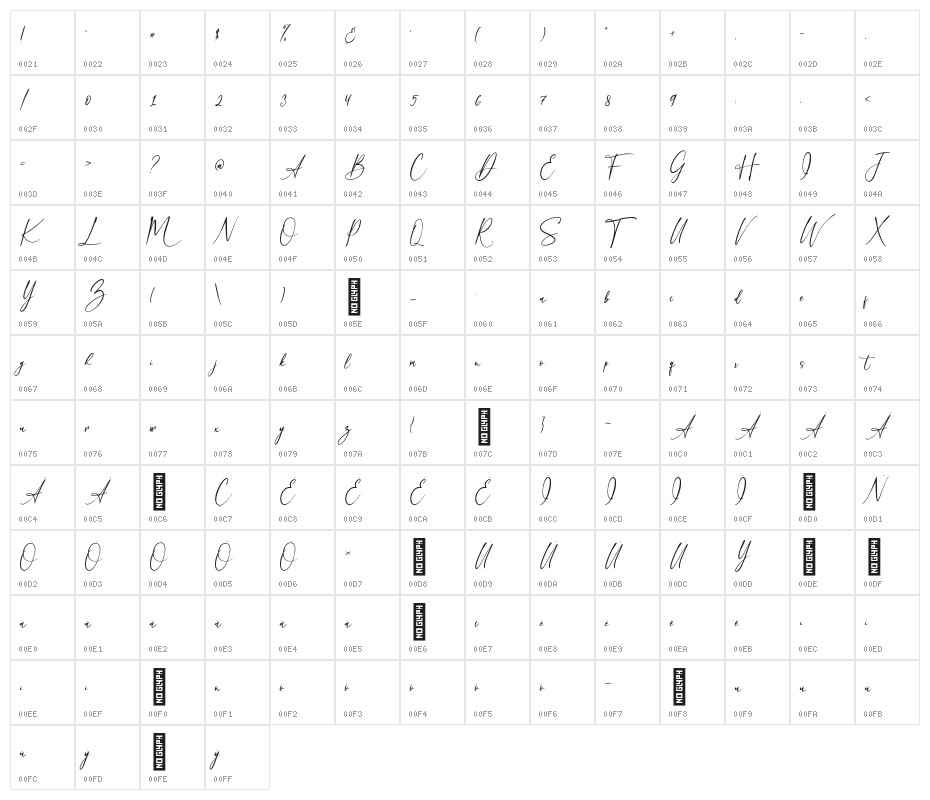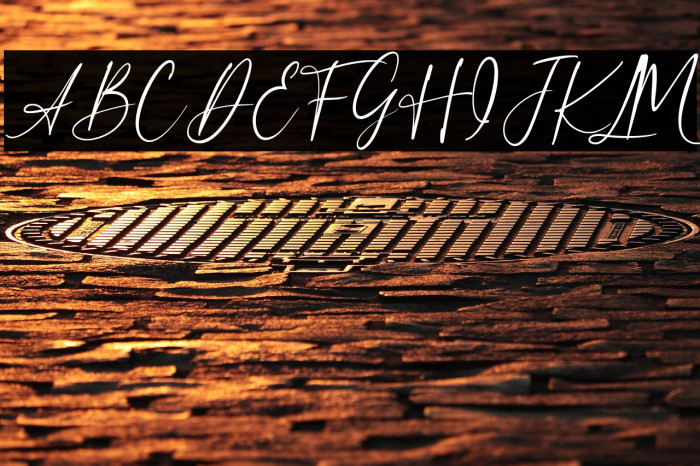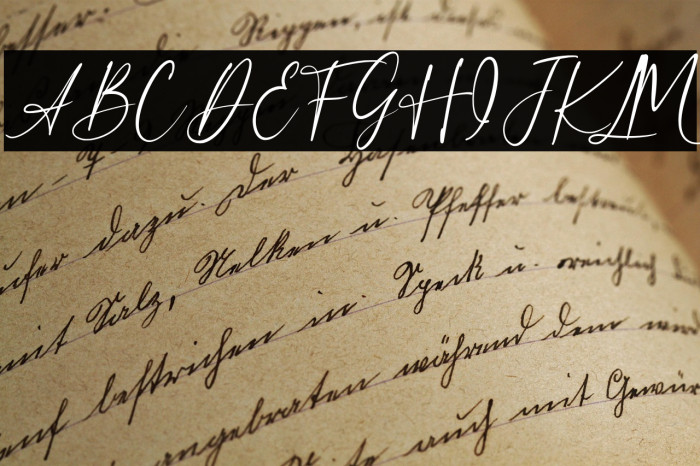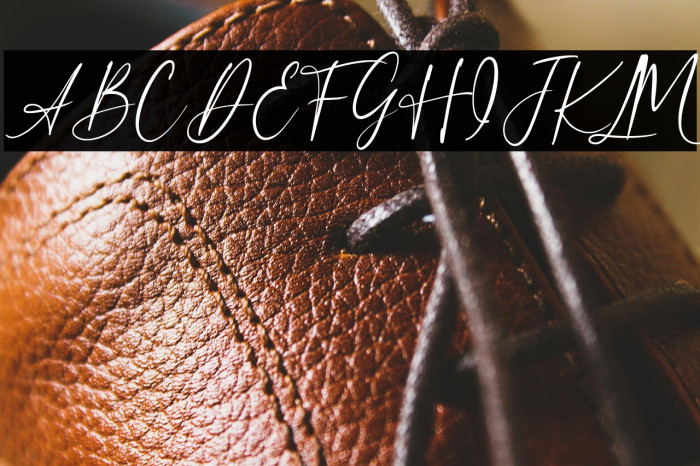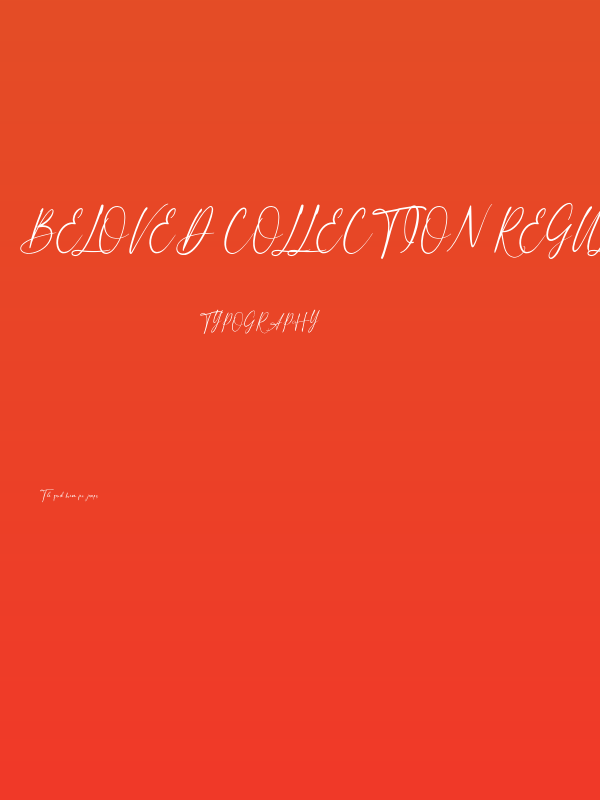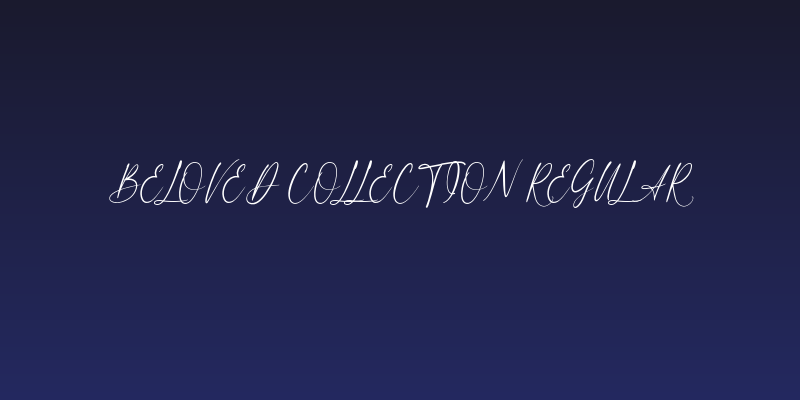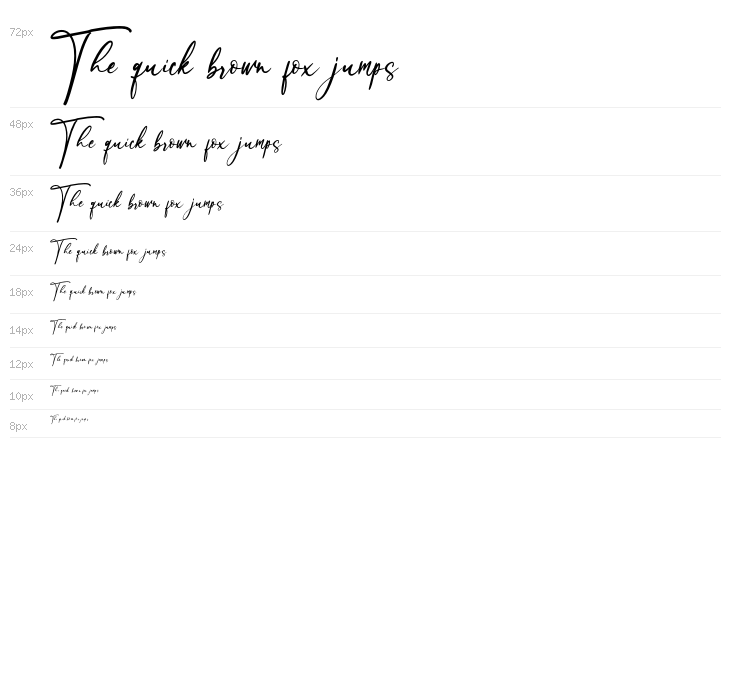
Beloved Collection Regular Font
Beloved Collection Regular Description
This font exudes elegance and sophistication with its flowing, cursive style. The letters are intricately designed, featuring smooth, sweeping curves and delicate loops that give it a handwritten feel. The uppercase letters are particularly ornate, with some characters extending below the baseline, adding a touch of flair. The lowercase letters maintain a consistent style, complementing the uppercase with their graceful forms. Numbers and special characters are crafted with the same attention to detail, ensuring a cohesive look throughout. This font is perfect for projects that require a personal, artistic touch, such as invitations, greeting cards, or branding materials.
| Overall Style | Elegant, Artistic |
| Use Case | Headlines, Invitations, Branding |
| Proposed Projects | Ideal for wedding invitations, personal branding, greeting cards, and artistic projects. |